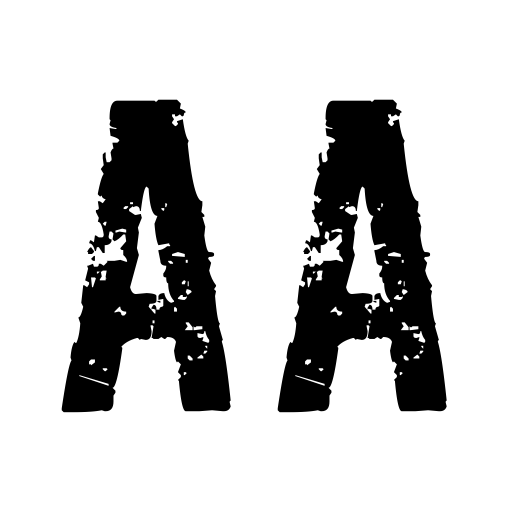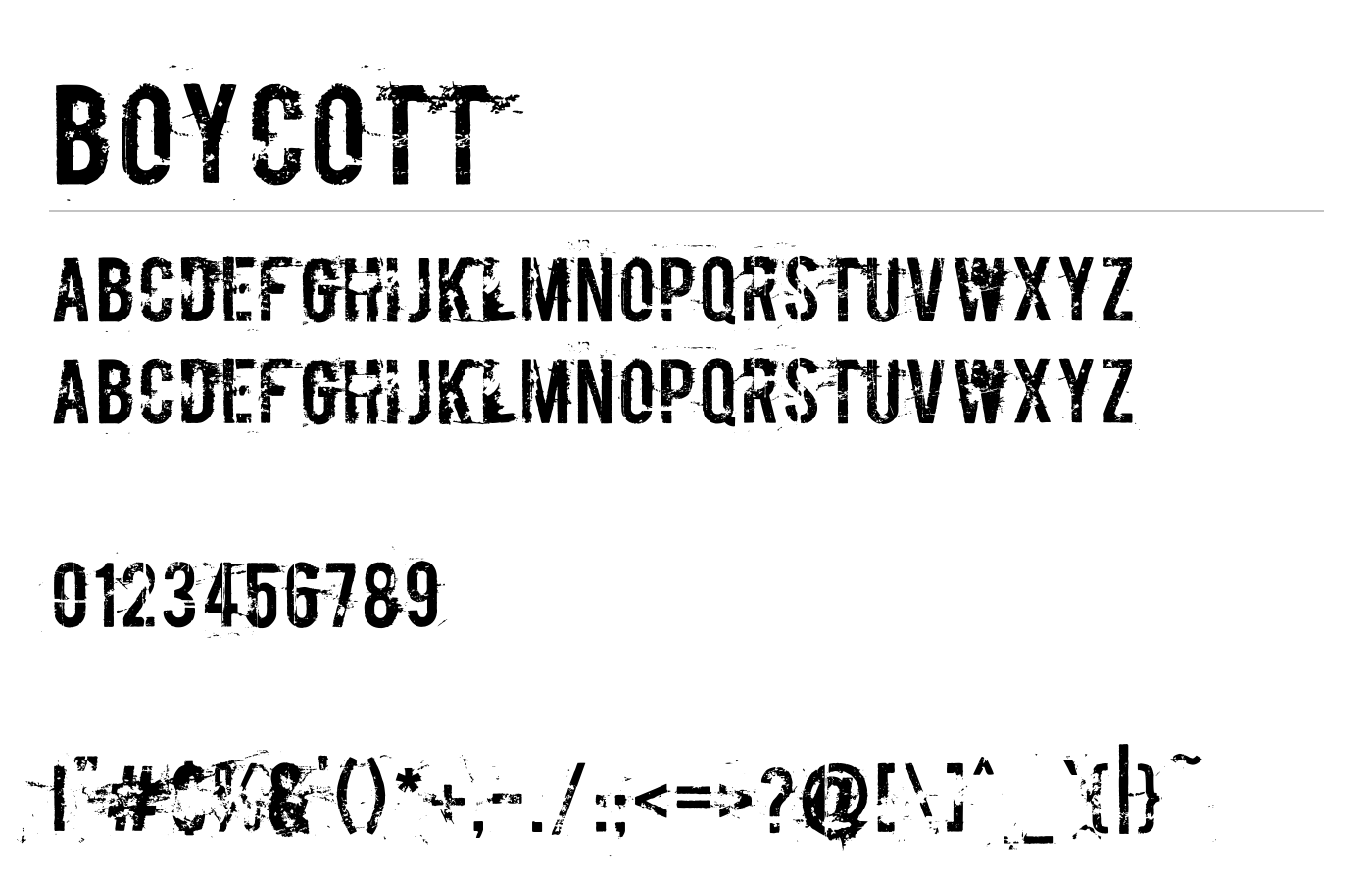
Boycott is a bold, condensed sans serif font with a distressed, grunge texture that gives it a raw, rugged character. Its all-caps design features strong, uniform strokes that convey a sense of urgency and rebellion, making it ideal for impactful headlines, posters, and edgy branding projects. This font works well in creative contexts where a bold, rough, and unconventional style is needed to grab attention and evoke a gritty, urban vibe.
Boycott Font
About Boycott Font